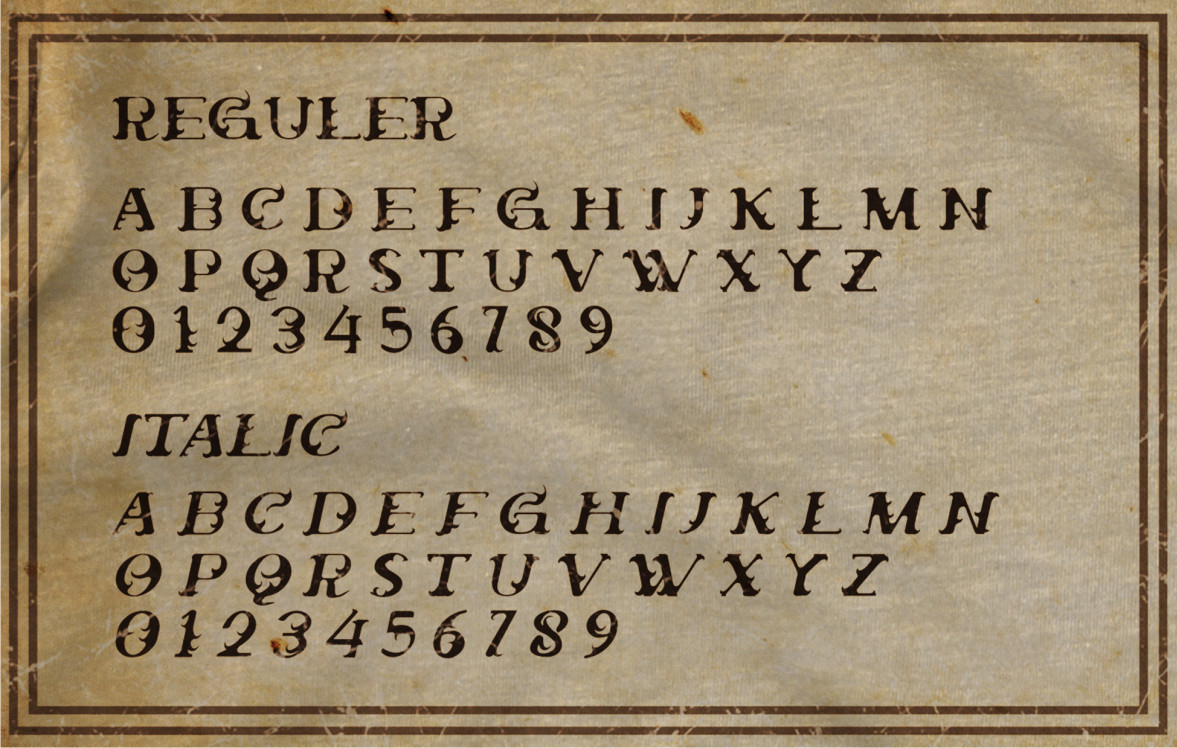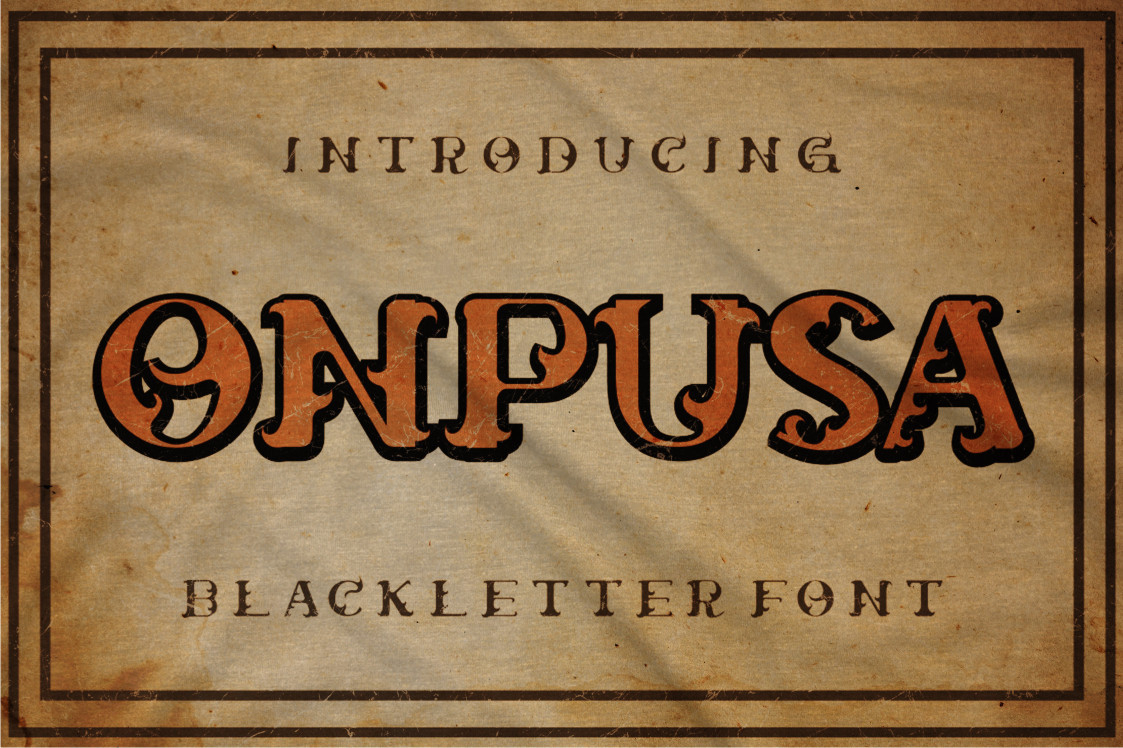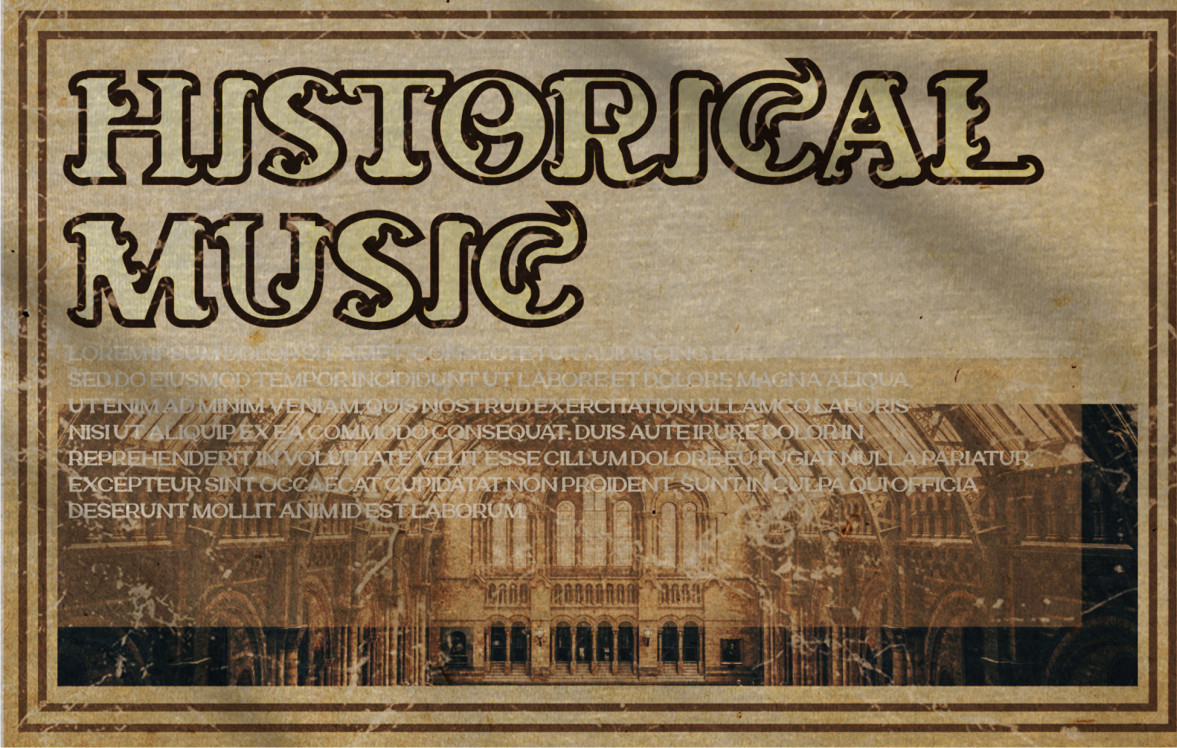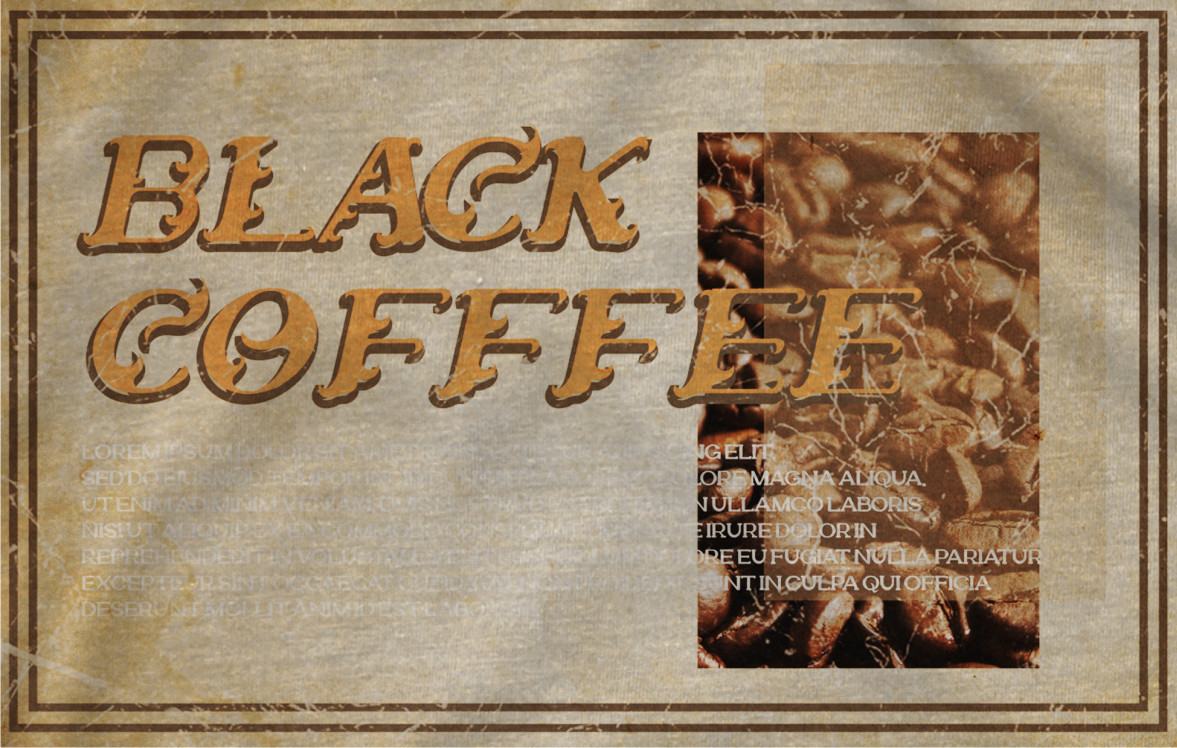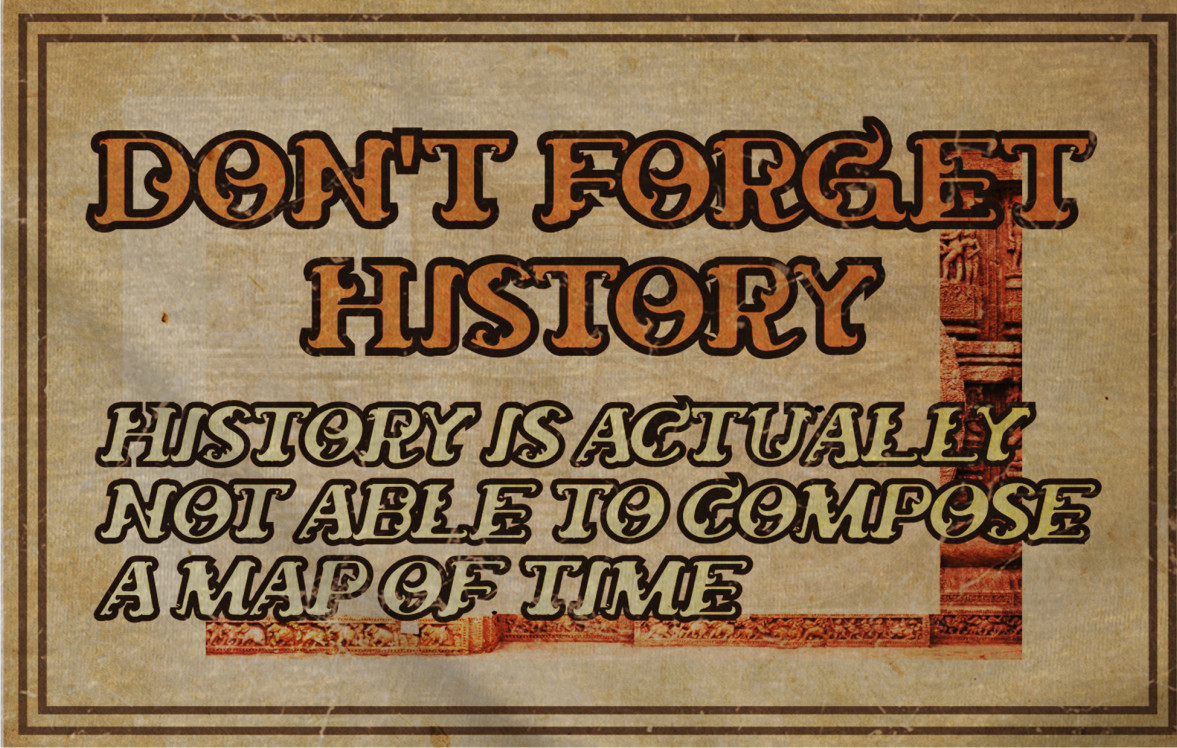
Onpusa Font
About Onpusa Font
Onpusa is a cool, thick lettered and assertive blackletter font. This font is suitable for designs such as labels, branding, logos, advertisements, and more.